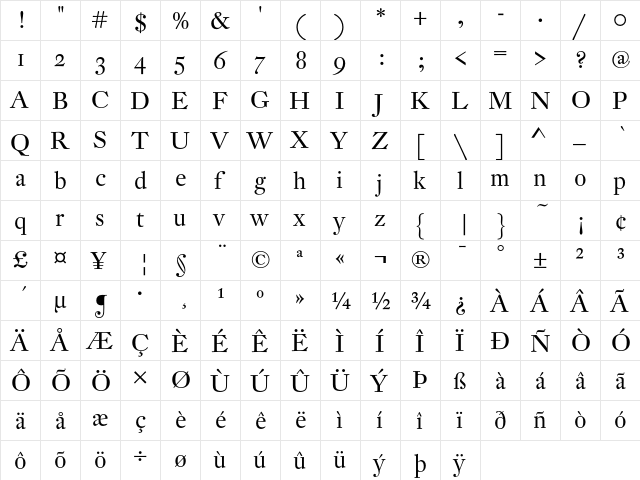
DTLFleischmannSD Regular
Design Context for DTLFleischmannSD Typeface
DTLFleischmannSD is a composed and adaptable typeface that performs quietly and consistently across a wide range of design contexts.